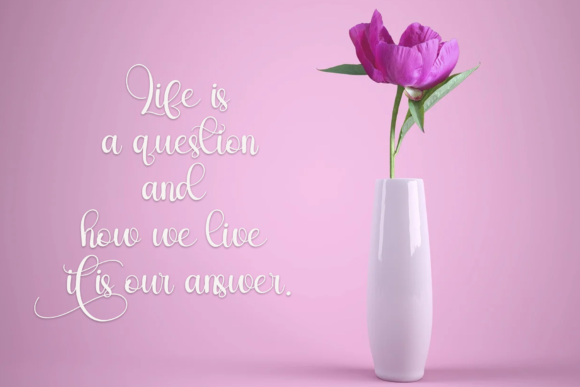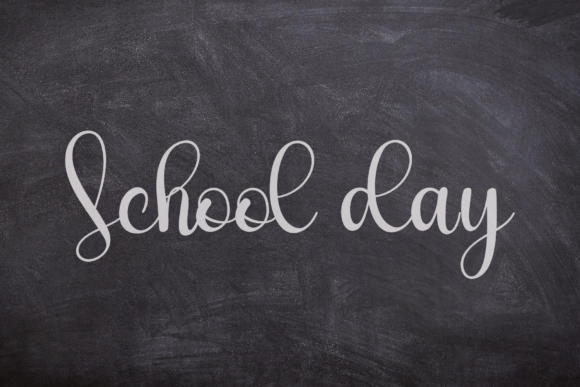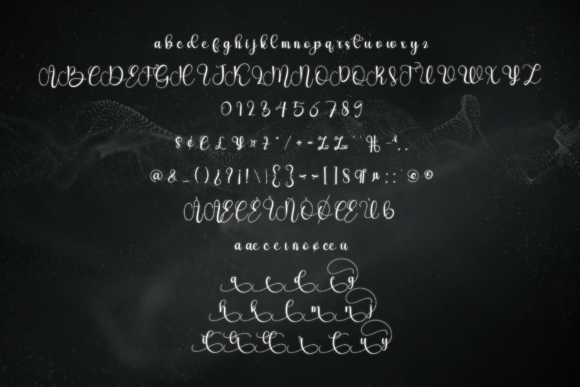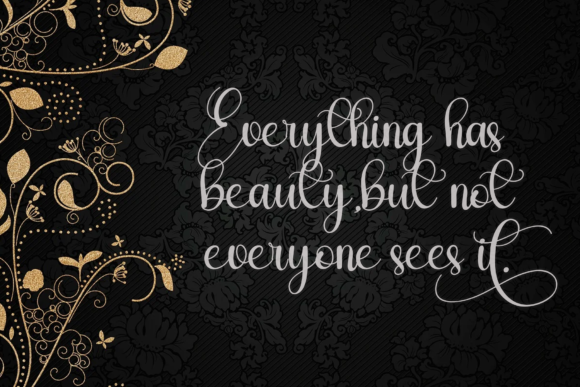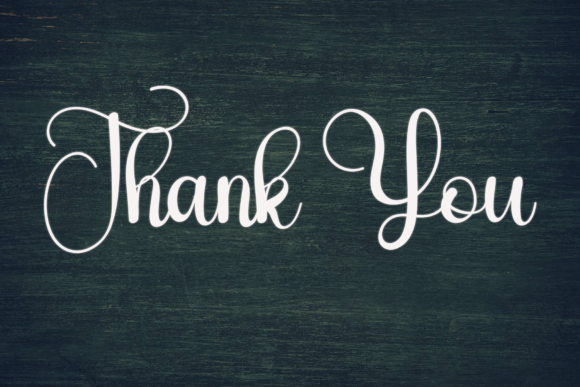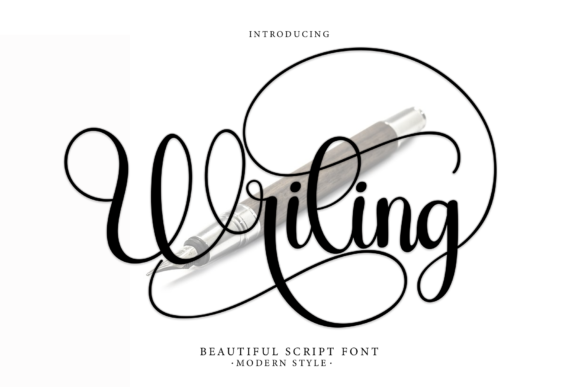
Writing Font
About Writing Font
“Writing” is a distinctive, round-lettered handwritten font meticulously crafted to achieve specific visual results. Its unique style lends itself well to writing titles, invitations, letters, and various other types of products. This font stands out as a versatile tool for creative expression, adding a special touch to your design projects.
The round lettering in “Writing” contributes to its uniqueness, creating a font that catches the eye and adds a distinctive character to written content. Whether utilized for creating impactful titles or for more personal applications such as invitations and letters, “Writing” brings a tailored and thoughtful aesthetic to your written expressions.
The careful craftsmanship of “Writing” ensures that it fulfills its intended purpose, delivering both visual appeal and functional value. Its handwritten charm adds an authentic touch to your projects, making it suitable for a wide range of creative applications. From formal to more casual contexts, “Writing” adapts seamlessly to different styles while retaining its distinct and appealing character.
In summary, “Writing” is more than just a font; it’s a uniquely crafted design tool that adds a special touch to your written content. With its round-lettered, handwritten style, “Writing” serves as a versatile and charming choice for titles, invitations, letters, and various other design projects, ensuring your creations carry a distinct and appealing quality.